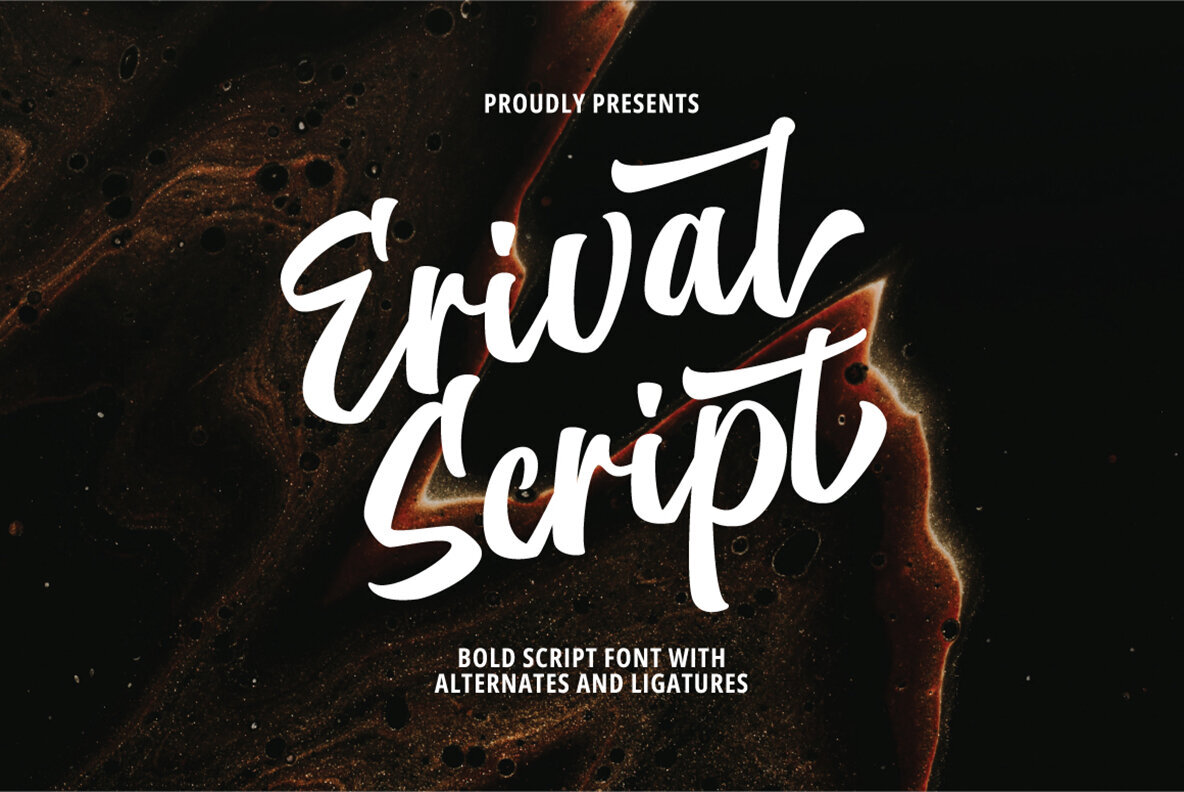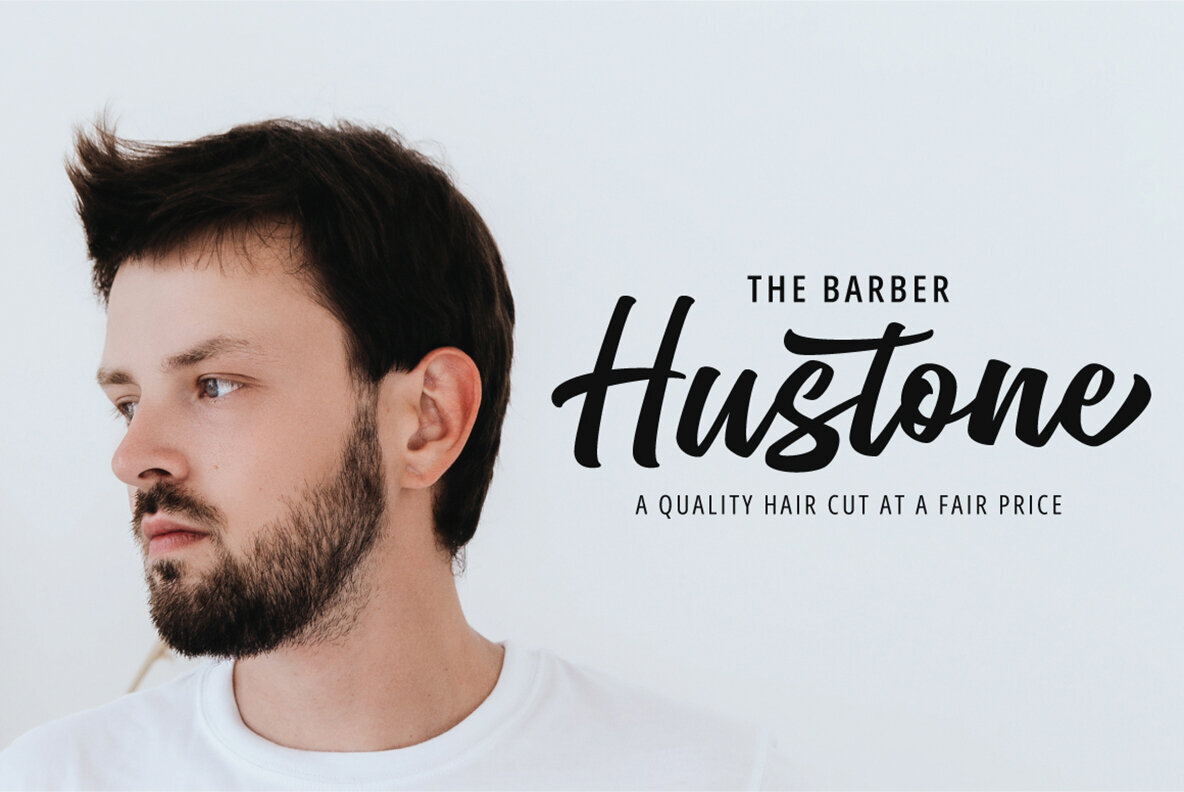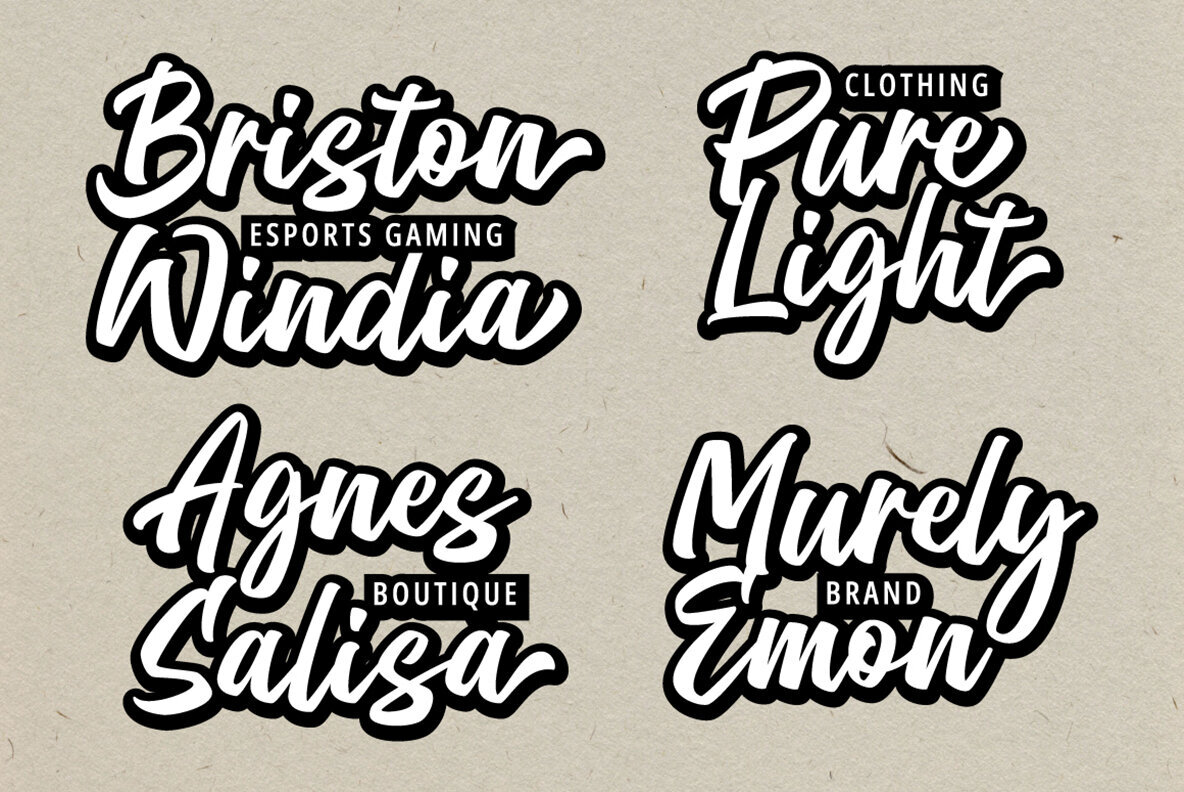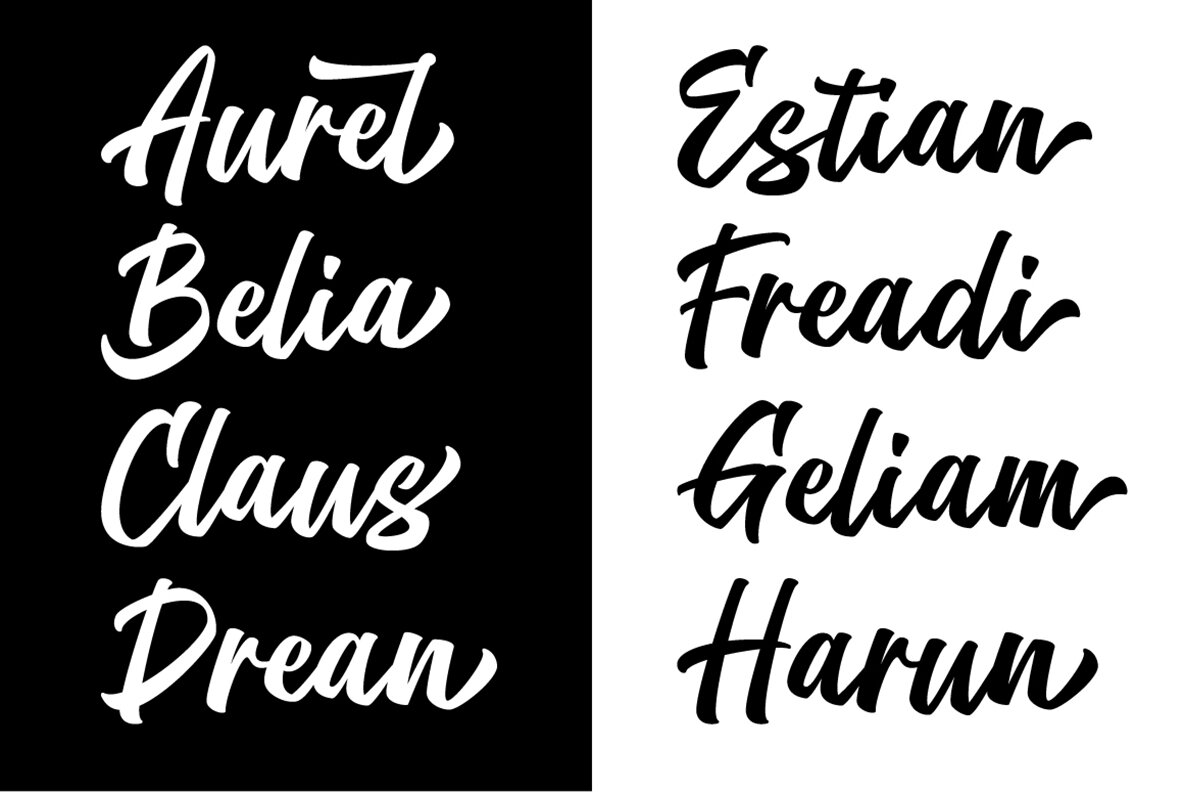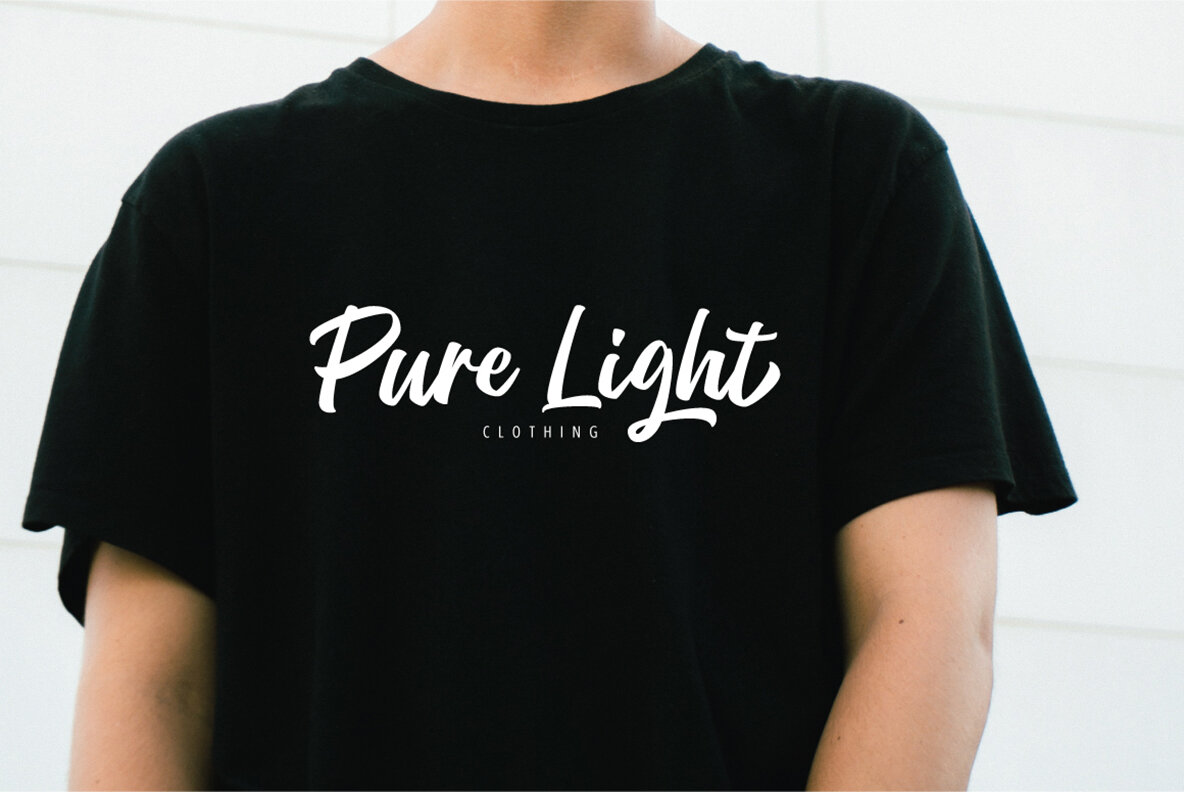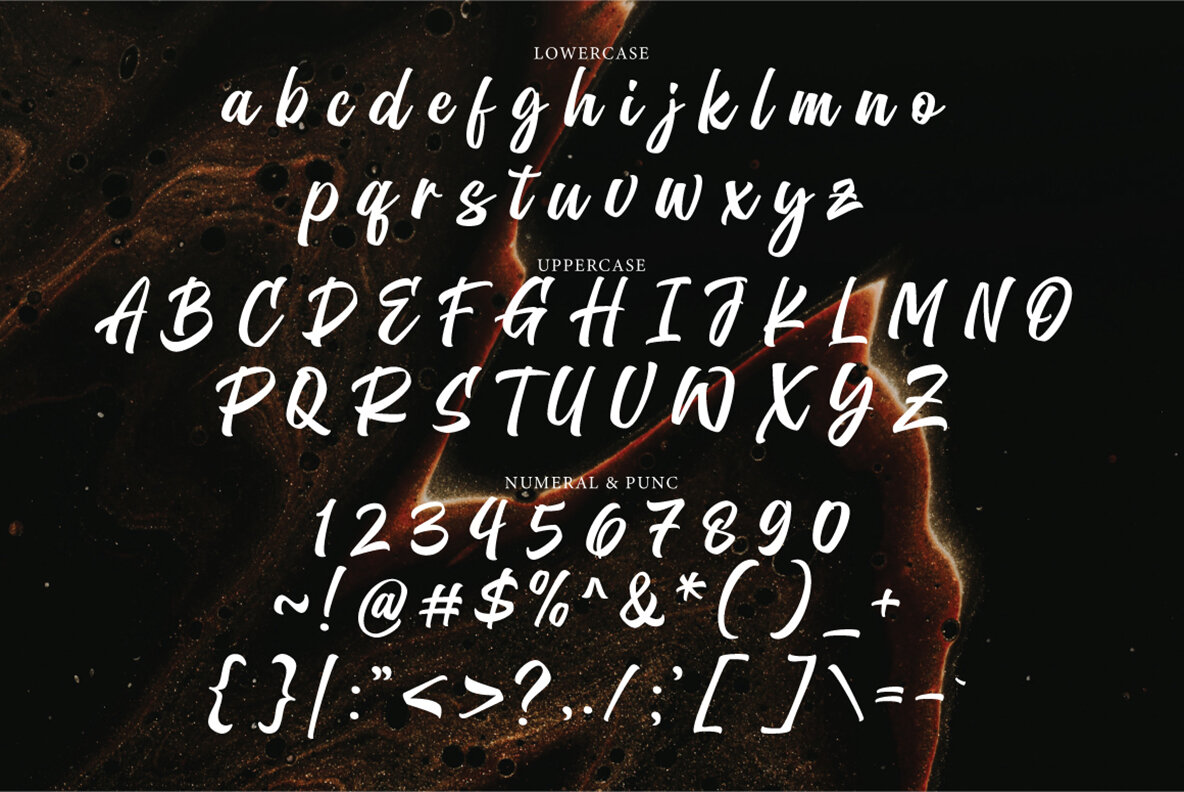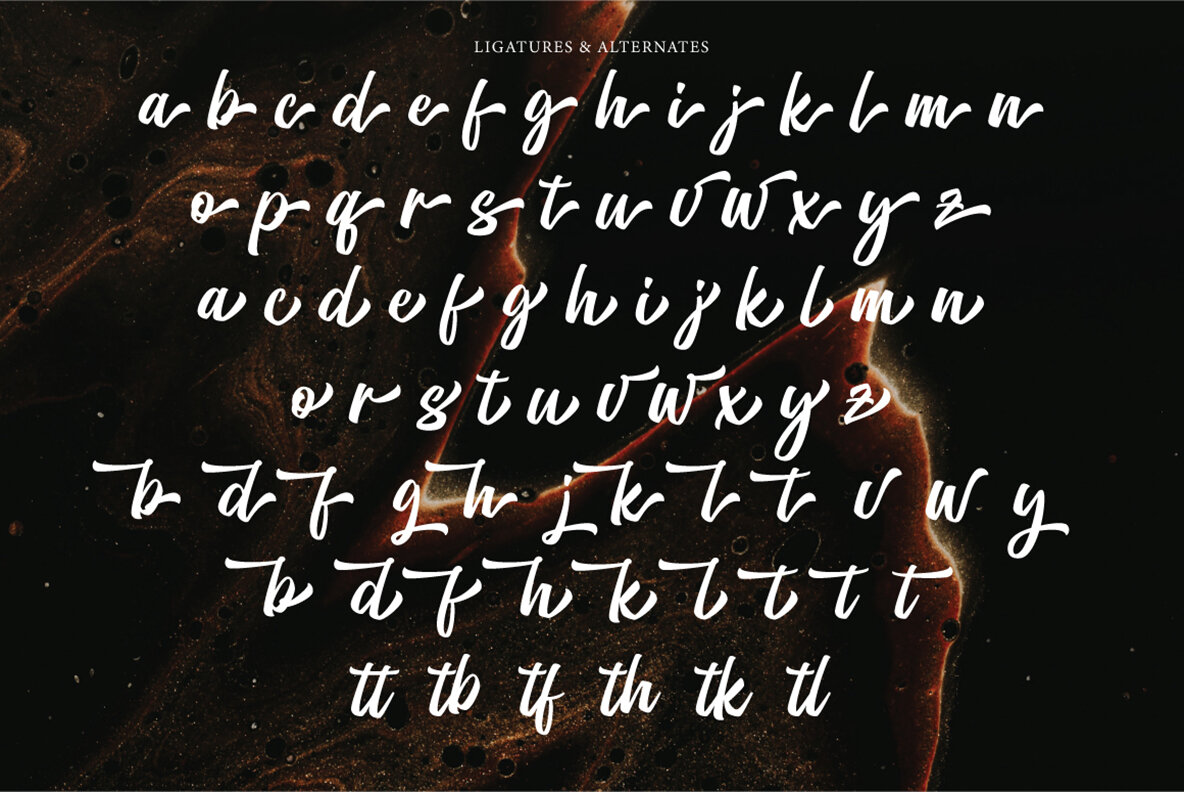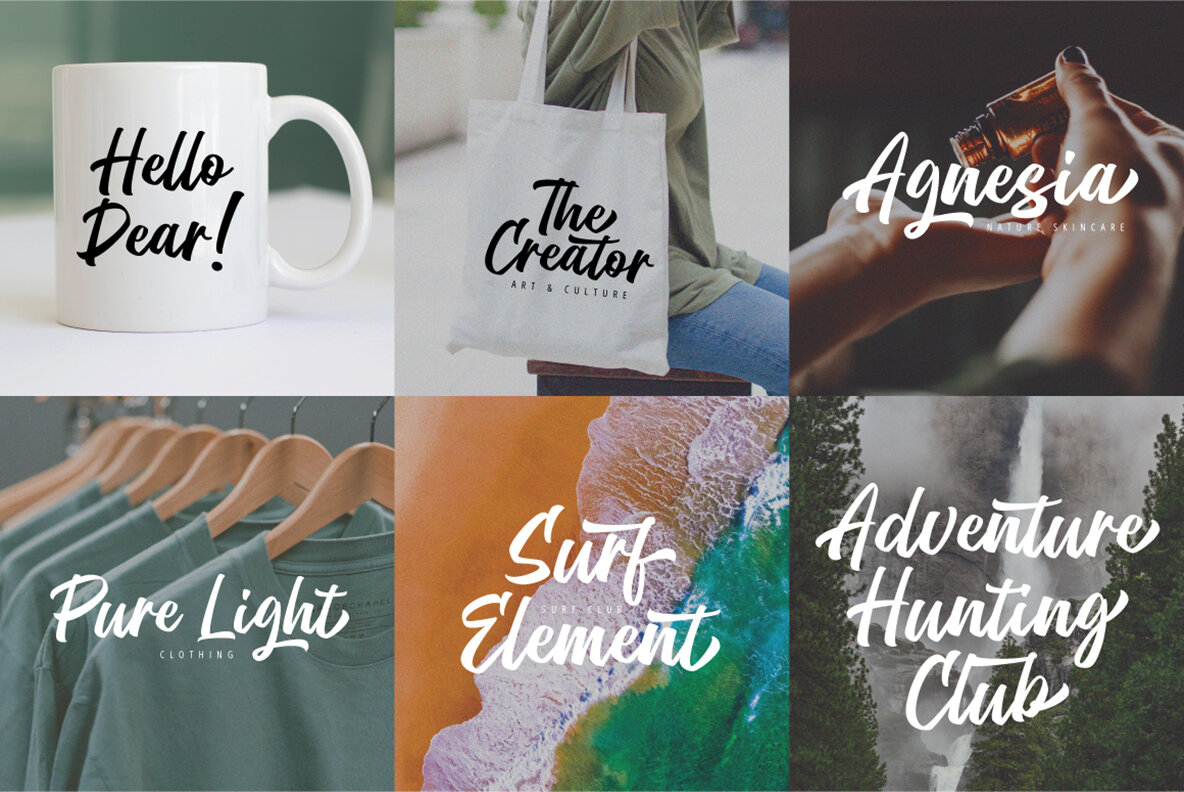
Erival Script Font
Erival Script Regular
Erival Script draws inspiration from contemporary fashion and streetwear, combined gracefully with hand lettering. Each curve is crafted with a distinct personality, creating a dynamic and bouncy baseline. This typeface includes a perfectly paired complimentary marker font and a useful set of bonus swashes, making it ideal for logos, handwritten quotes, product packaging, headers, posters, merchandise, social media, and greeting cards.